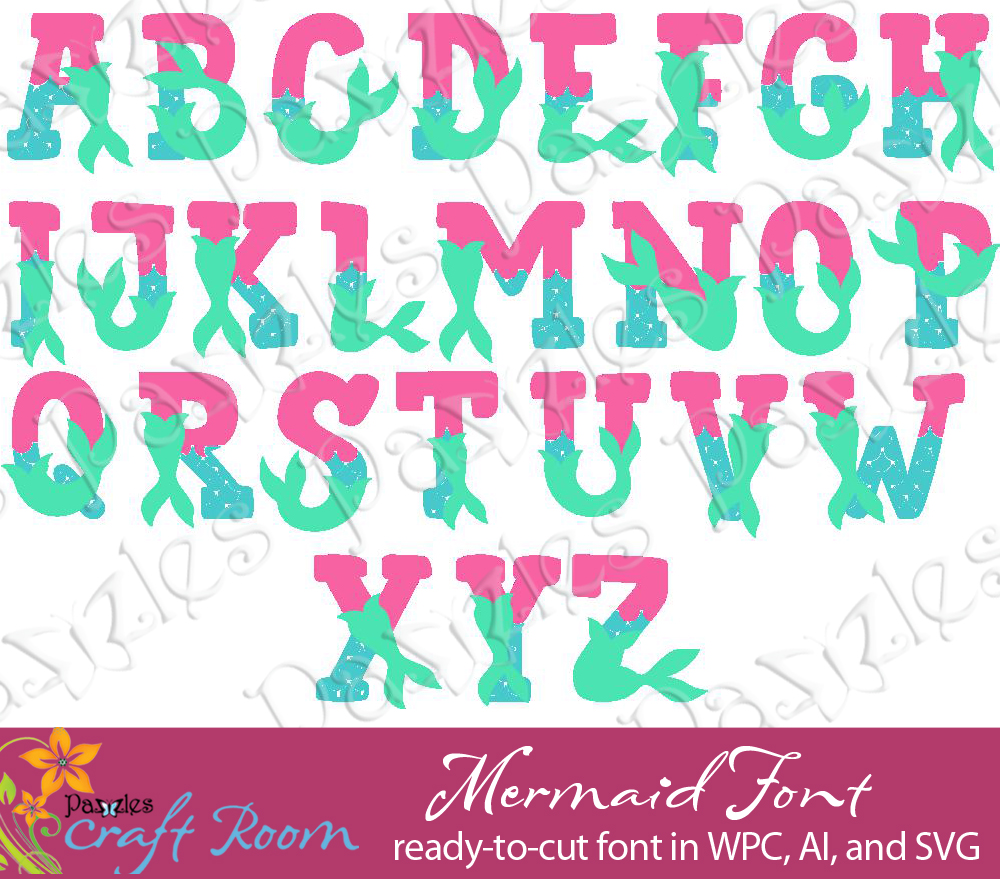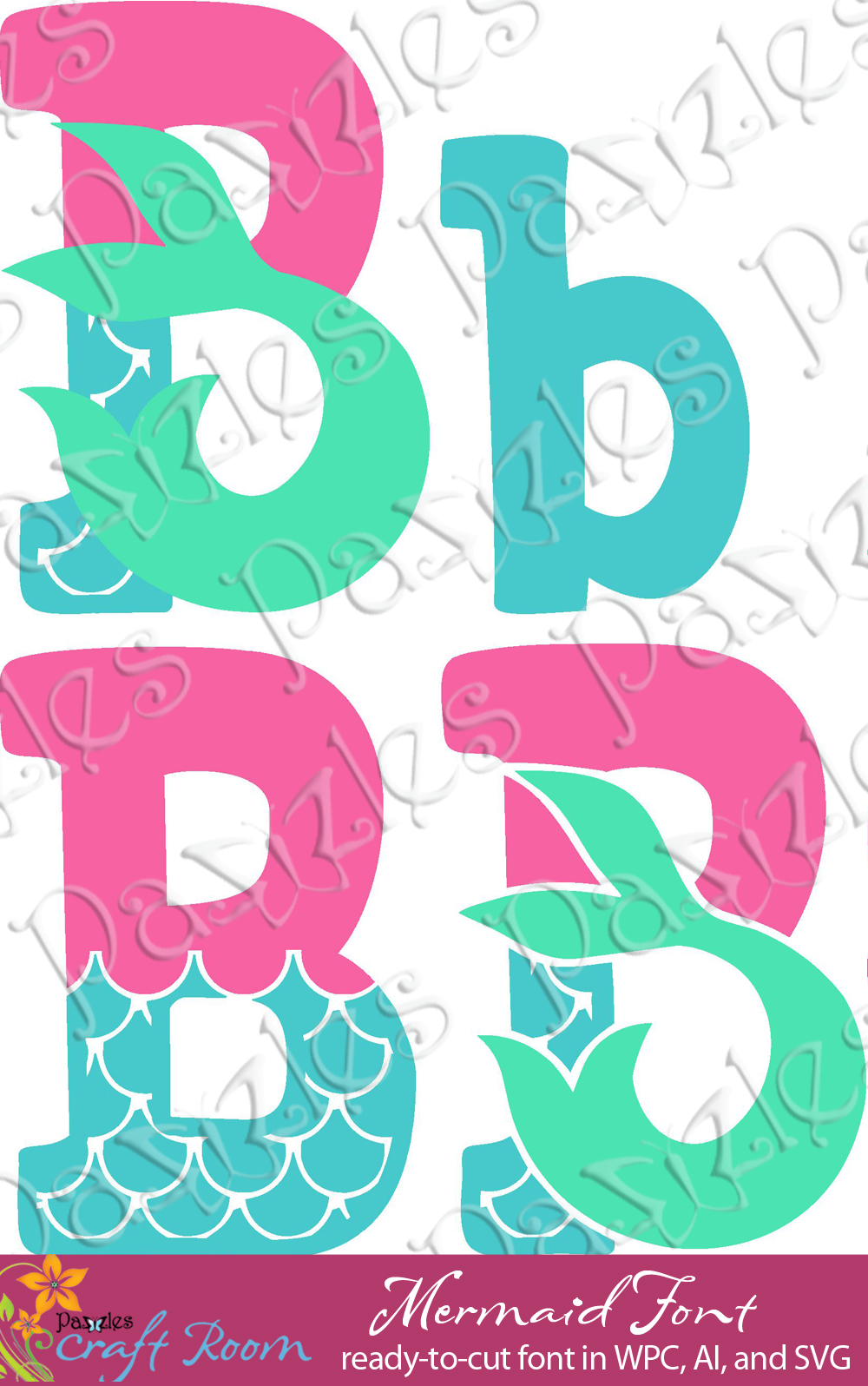
I am ALL about this mermaid trend. The Little Mermaid was released in my childhood and ever since then I have always had dreams of being a mermaid. I’m already 50% there!
When I looked around for mermaid fonts though I was a little disappointed. There were some that were sort of what I wanted, but nothing that perfectly captured that mermaid vibe. I knew if I felt that way, I know there must be a lot of other people too! So I made this mermaid font.
This is really several fonts combined in to one. Each letter has a variation without a tail (bottom left). The tail option also comes designs for paper piecing (top left) and for vinyl or iron-on (bottom right) and, in case you need it, a matching lower case (top right).
Mix and match the fonts to get the look that you want. These would be so fun for a girl’s name wouldn’t they? I used them to create this t-shirt which I am now totally in love with. I was going to give it as a gift but nope, I’m keeping this!